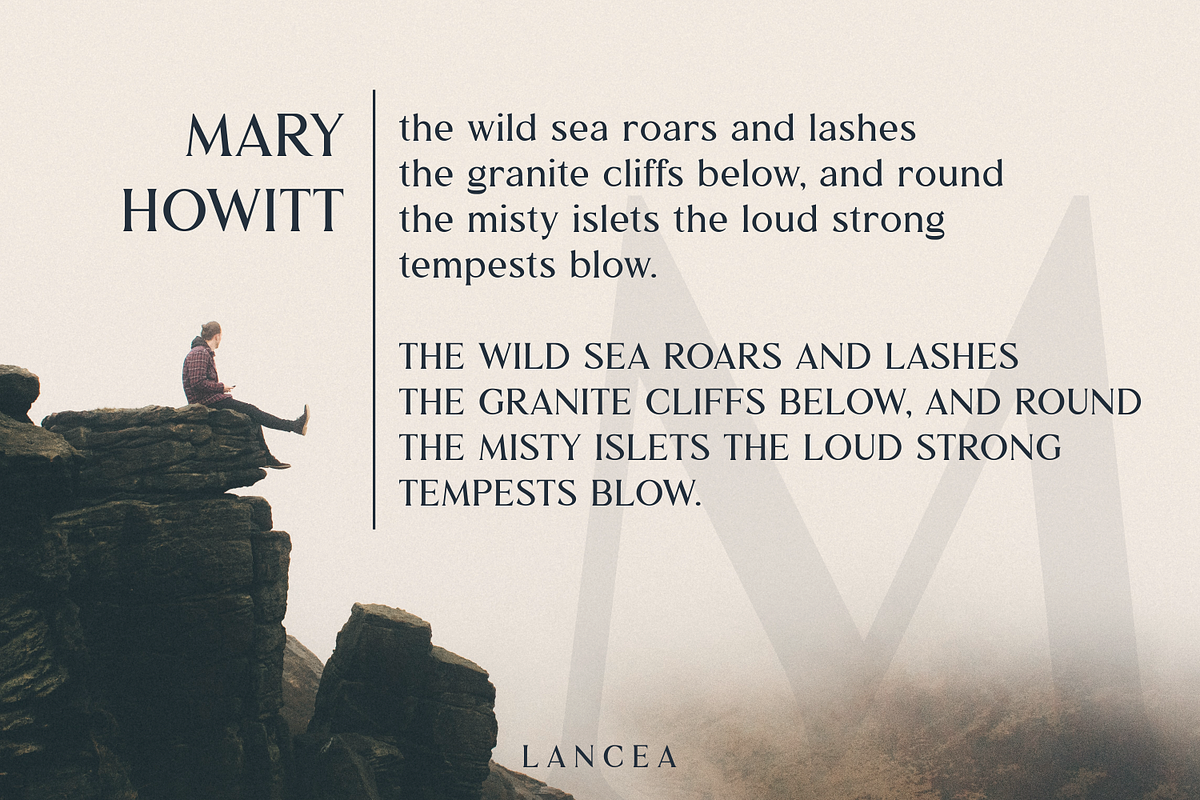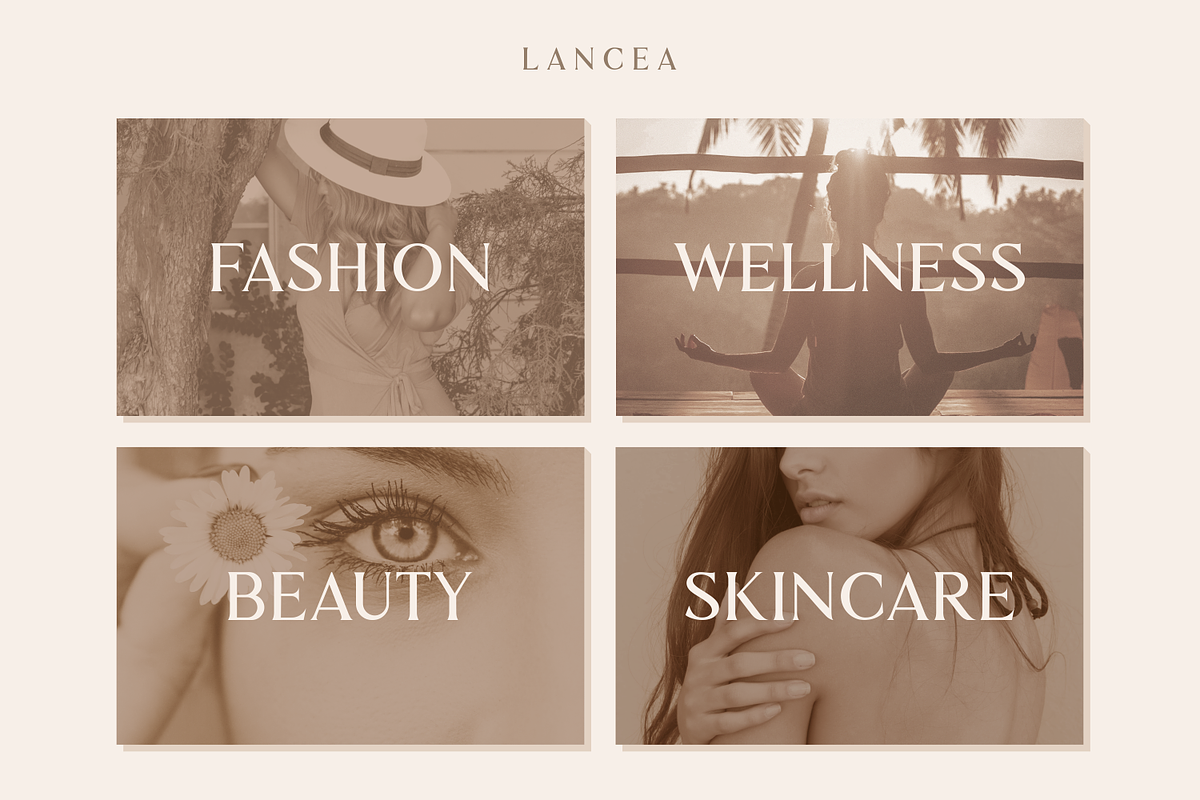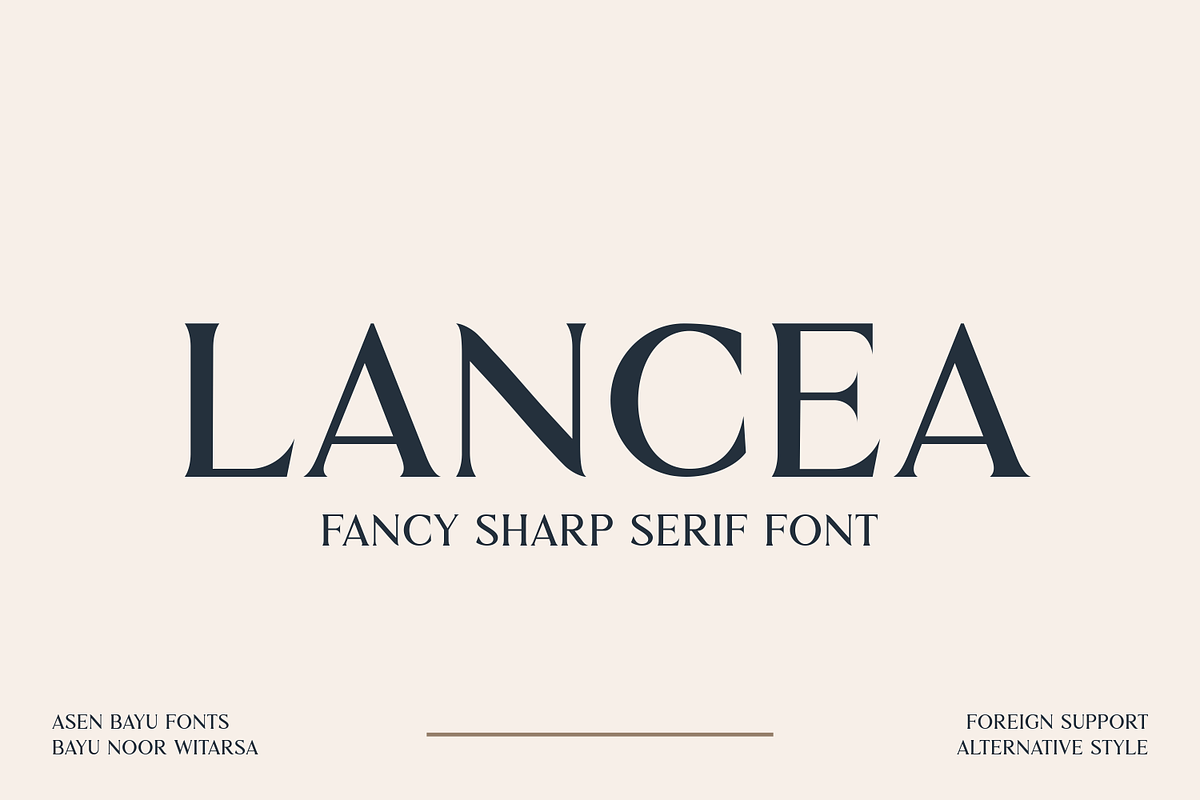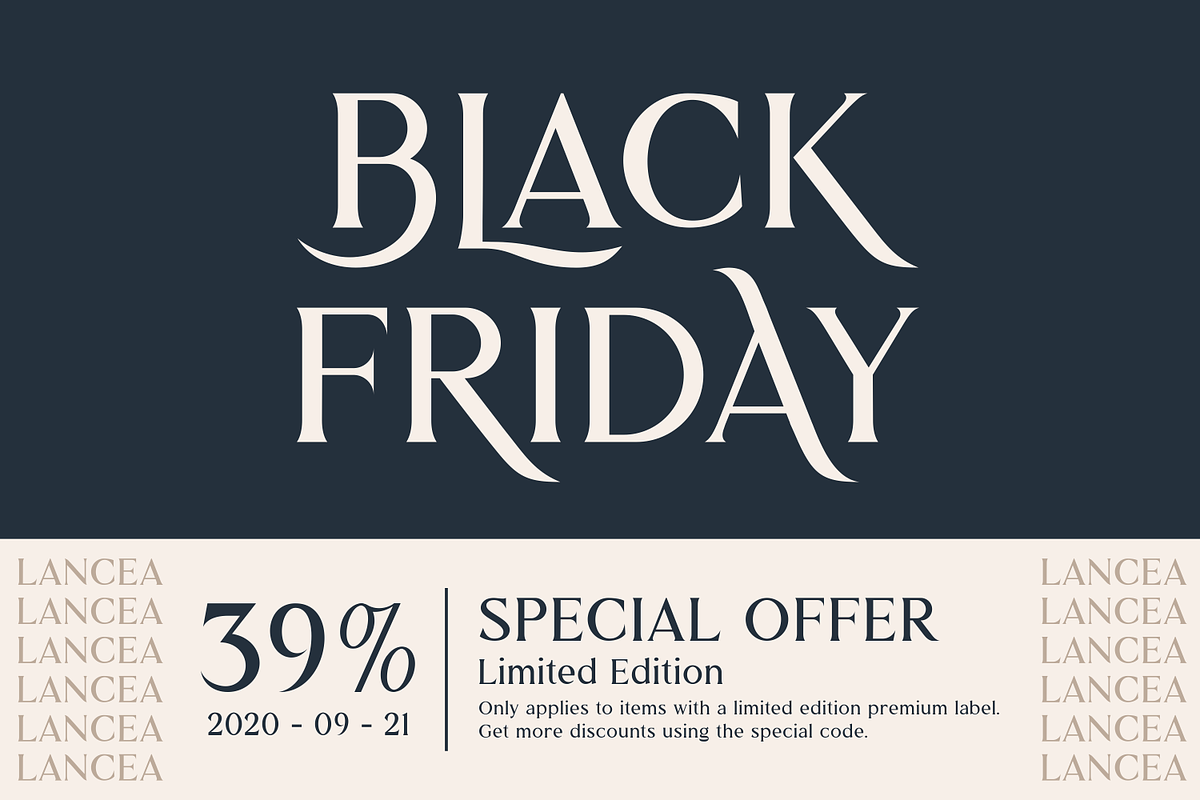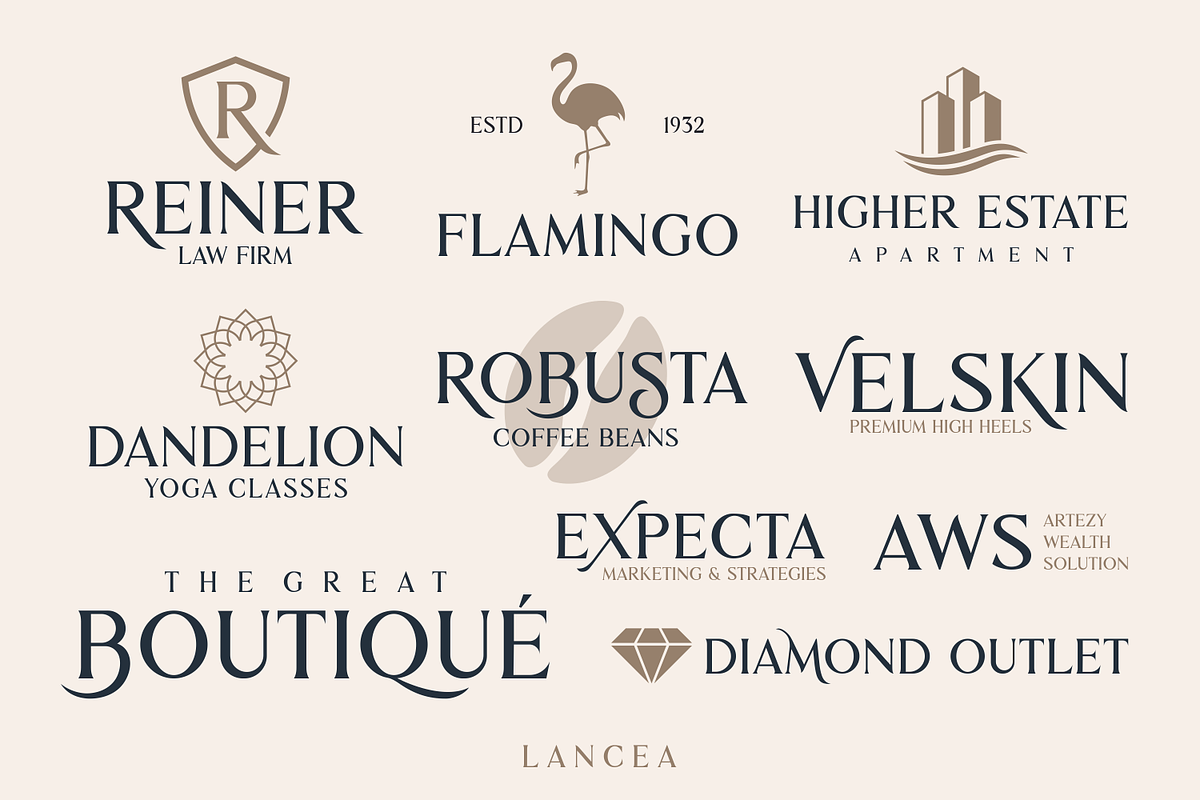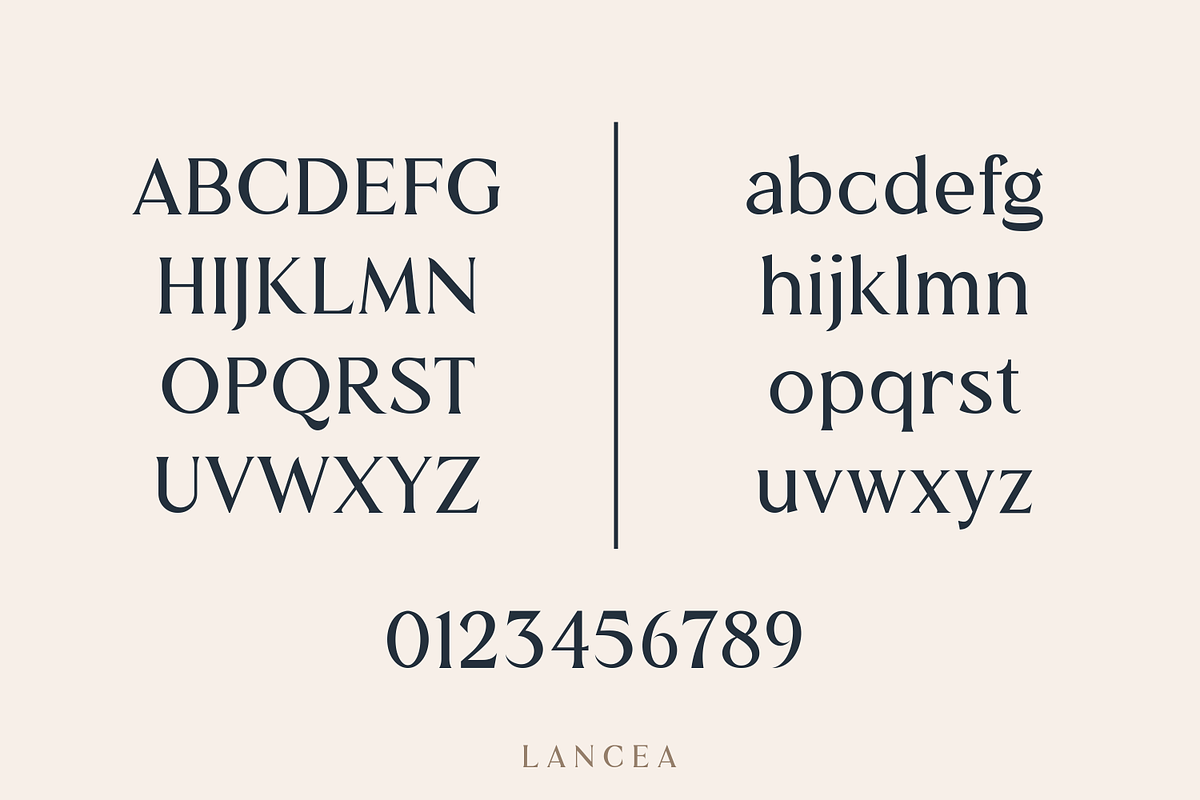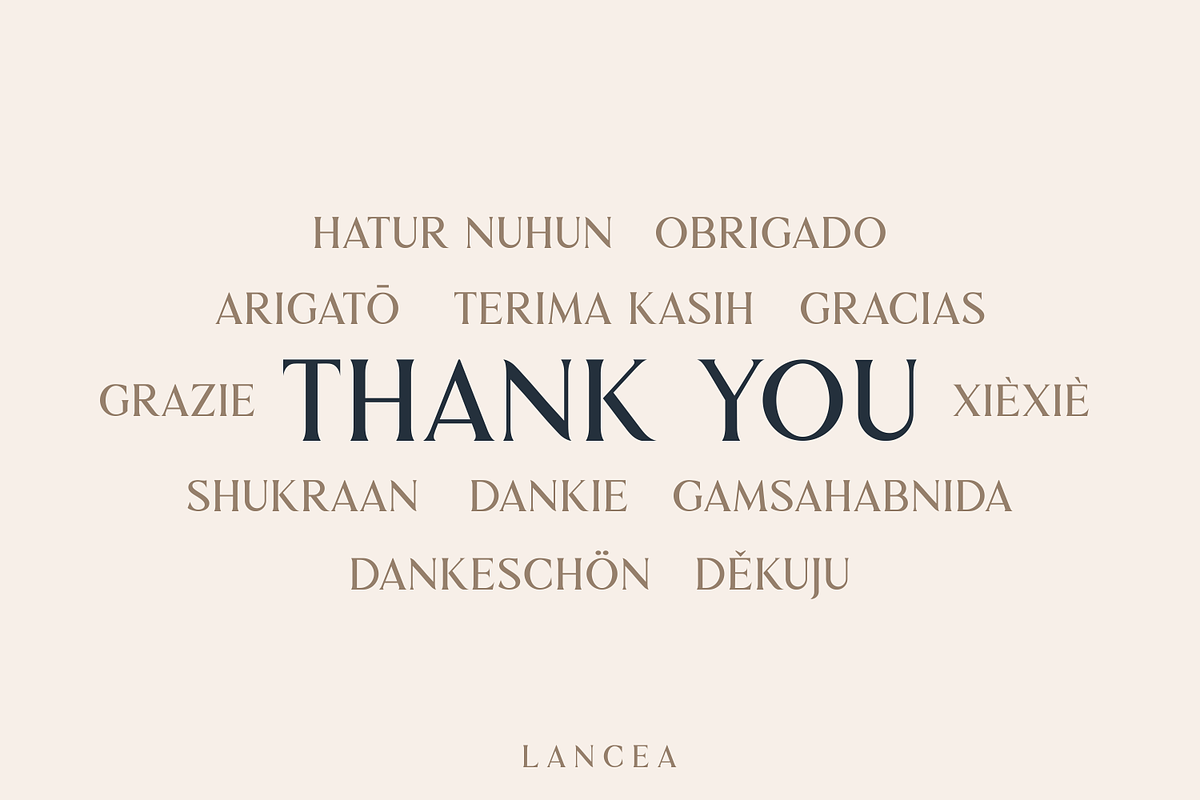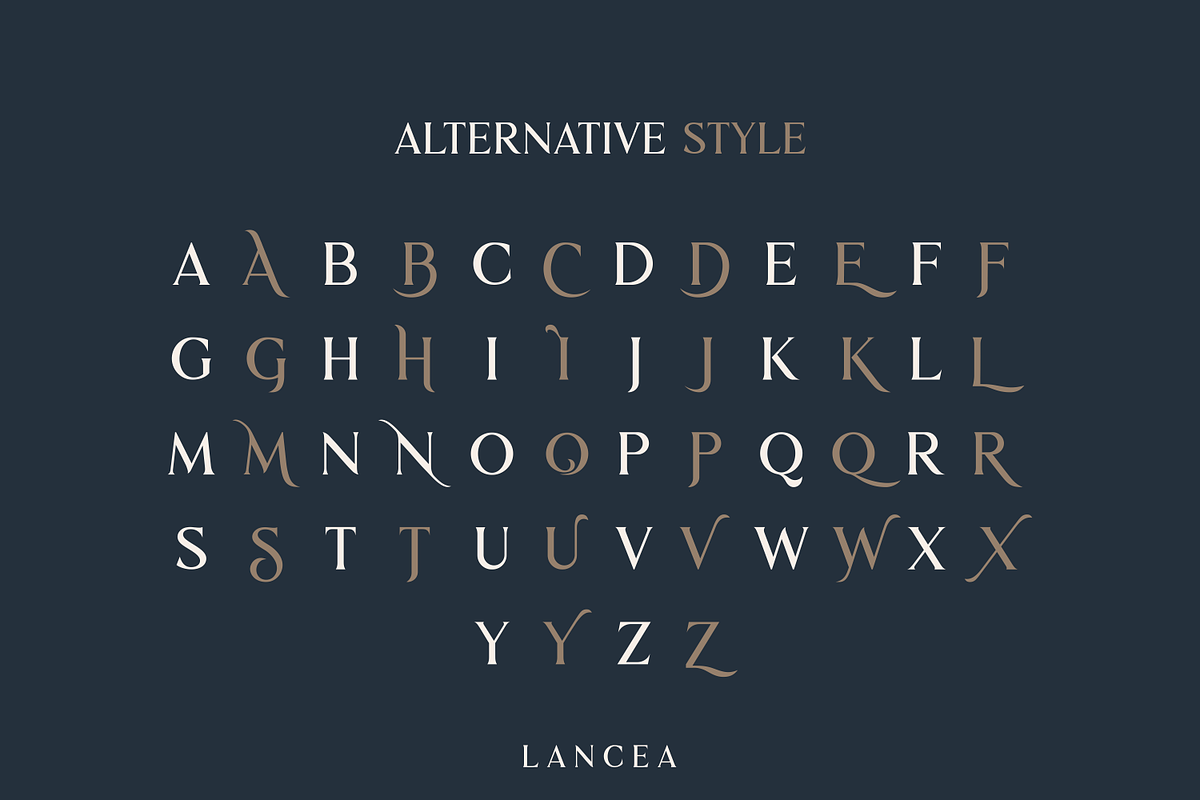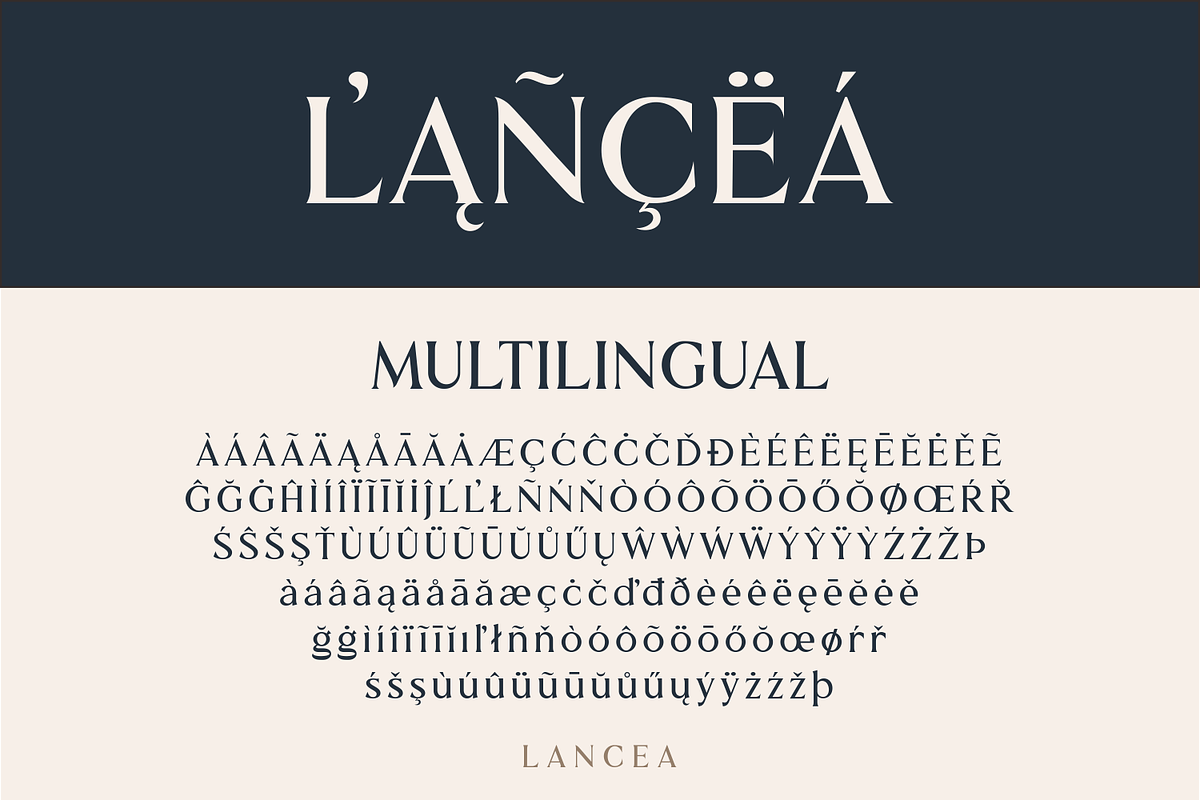
Lancea Font
Lancea is a fancy sharp serif font. Inspired by medieval roman writing combined with the sharpness of a lance, Lancea is packaged in a font that has sharpness in each letter with an elegant shape that has a strong appeal. Lancea also gives it a sophisticated feel with a sleek and clean serif shape. Lancea typography can help you complete various projects such as luxury brand logos, journals, business cards, headline, products, social media posts, web, and more. If you are involved in a project that requires fancy and professional writing, Lancea is perfect to assist you in completing it.
Lancea fonts feature opentype, kerning, and alternates. Lancea fonts include uppercase letters, lowercase letters, numeral, punctuation and multilingual support.